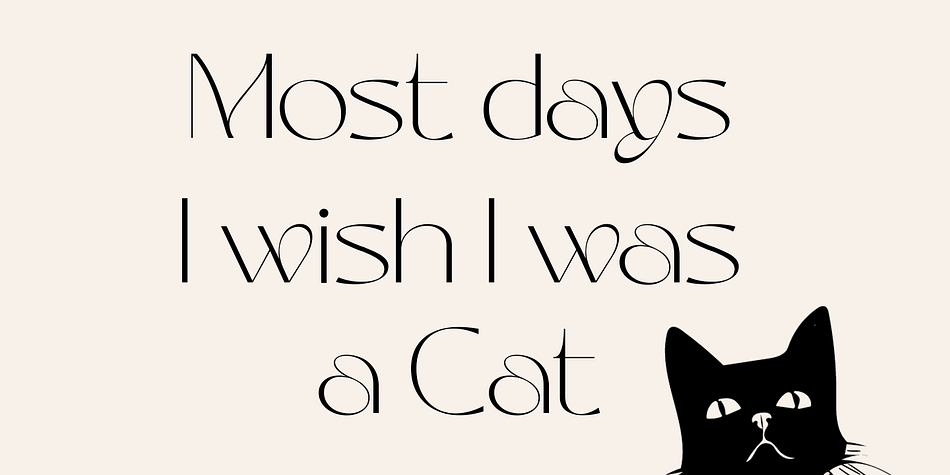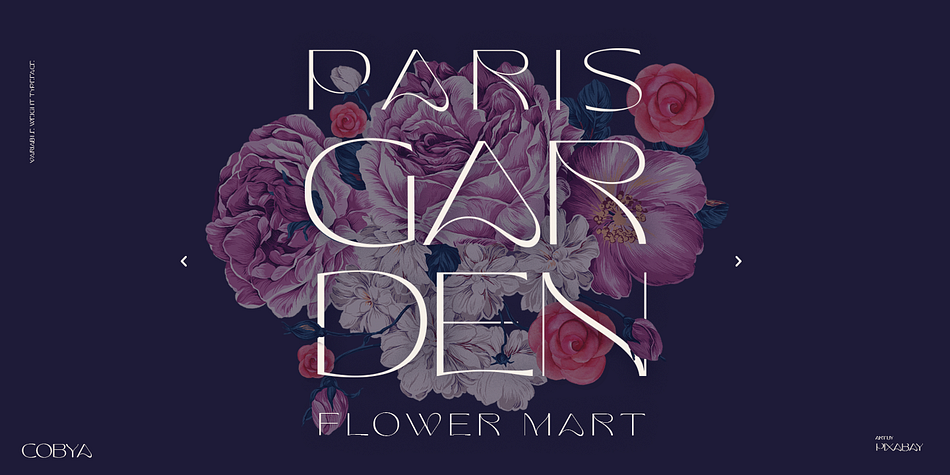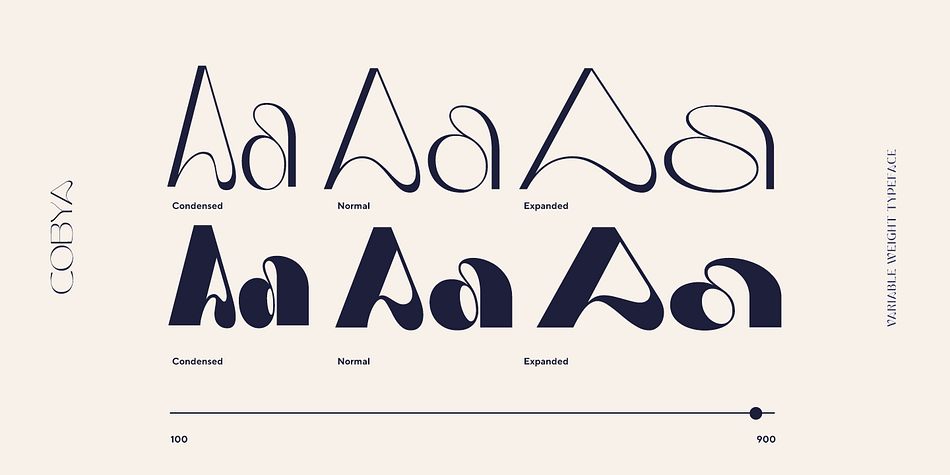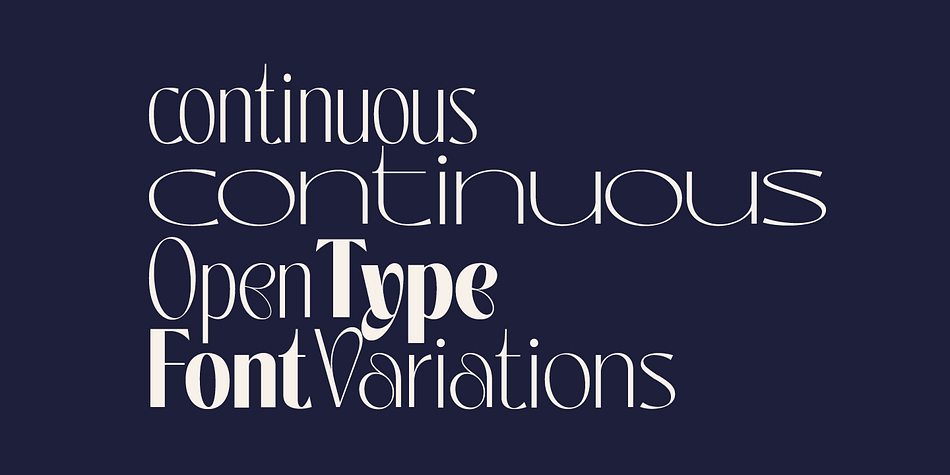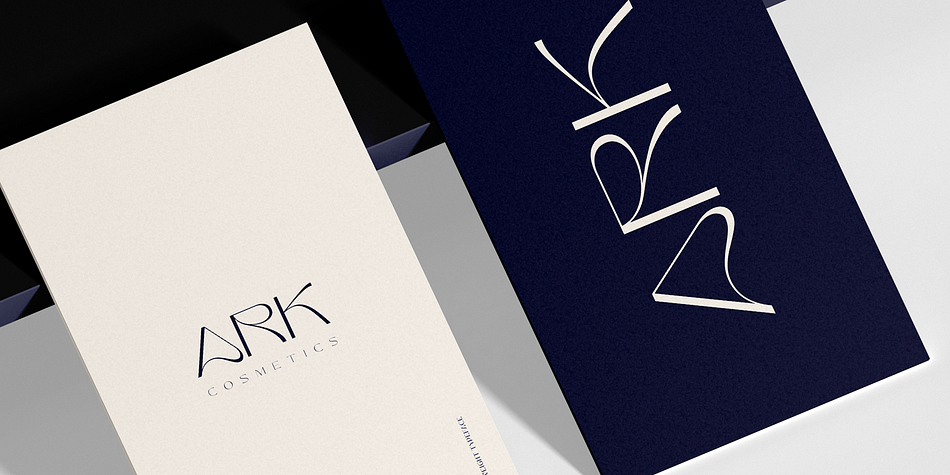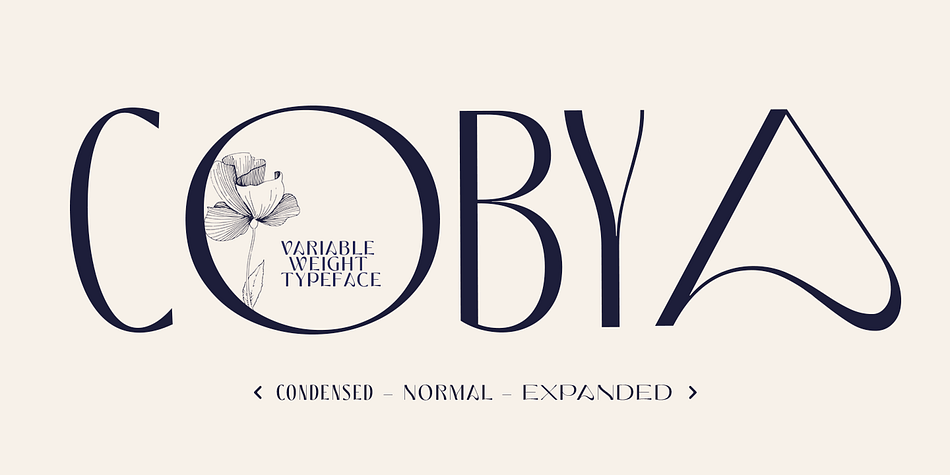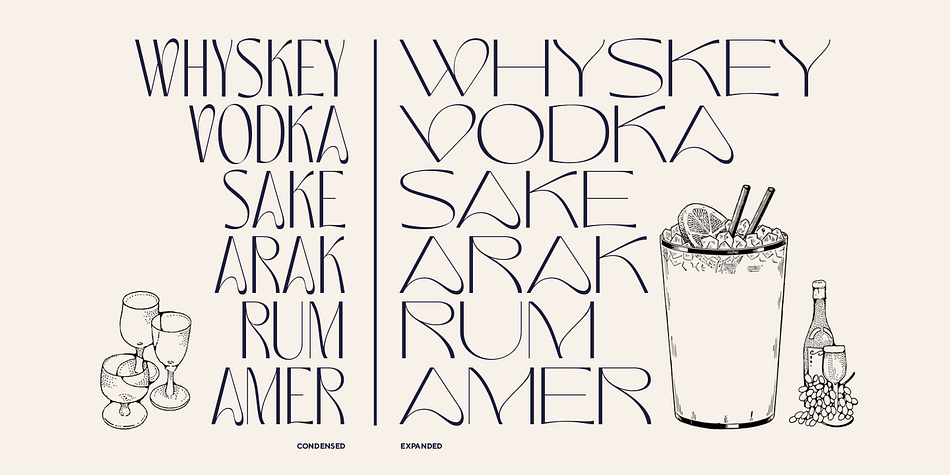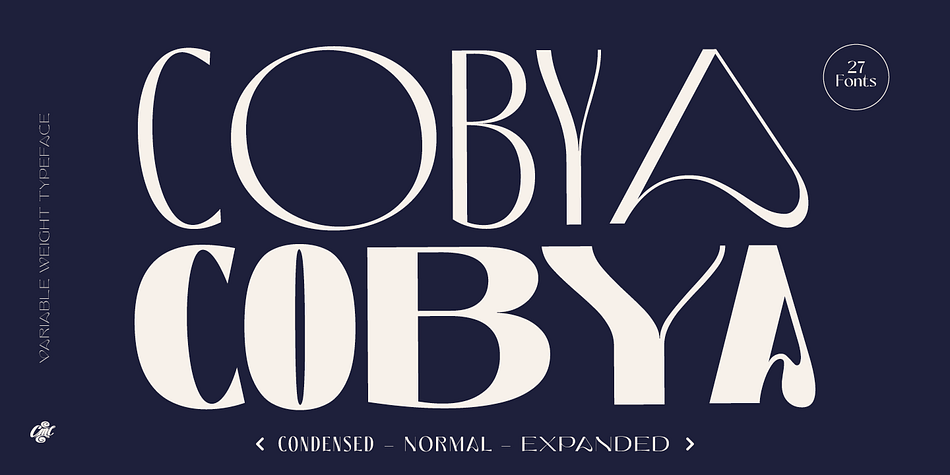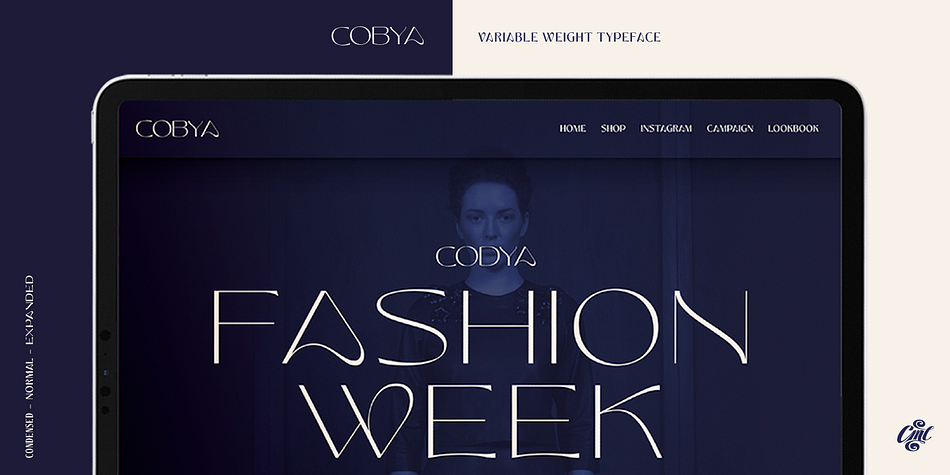
Cobya is a display sans font family. This typeface has twenty-eight styles and was published by Creative Media Lab.
Introducing Cobya - a modern variable weight typeface
Cobya is inspired by the waves and the ocean. Some letter like A,W,V reflects the dynamic and beautiful shape of the waves.
Cobya consists of three widths condensed, normal and expanded. Each width has 9 weights, also a Variable format.
Try All Capitals and play with the spacing for a modern and fashionable look.
Cobya has distinctive and unique characteristics, so it is very suitable when used as a branding logo or fashion design concept.